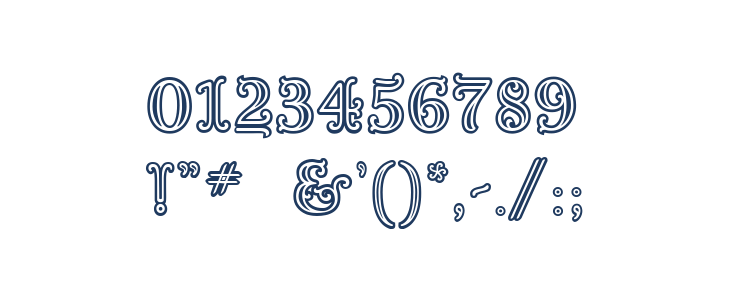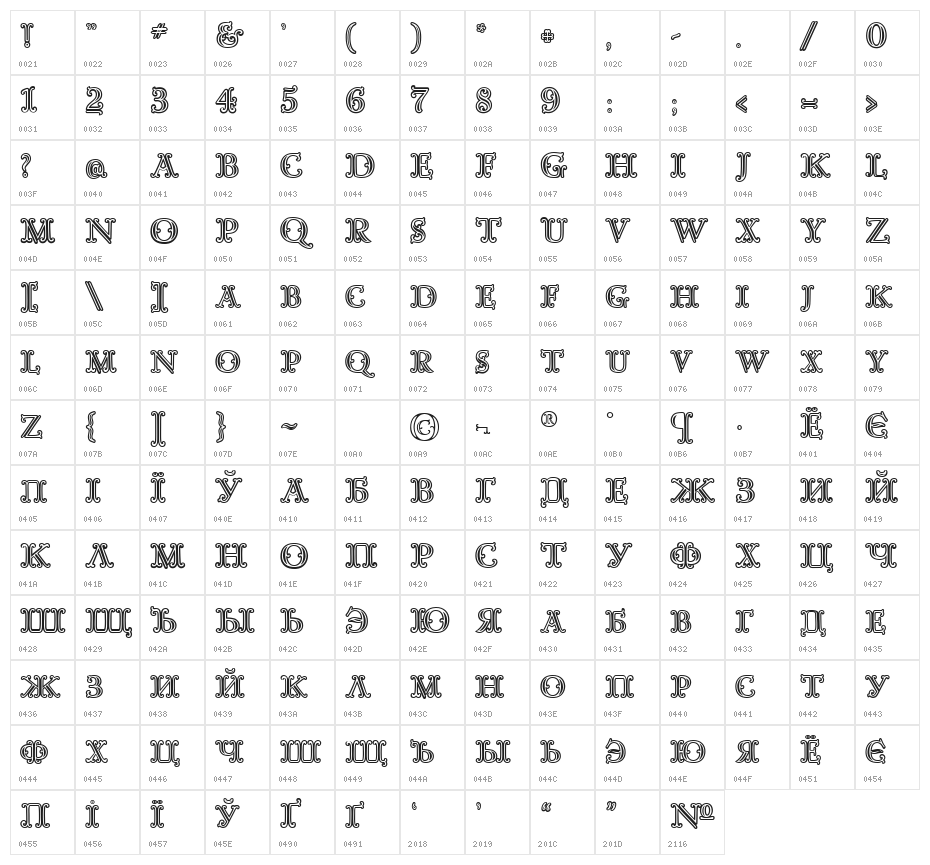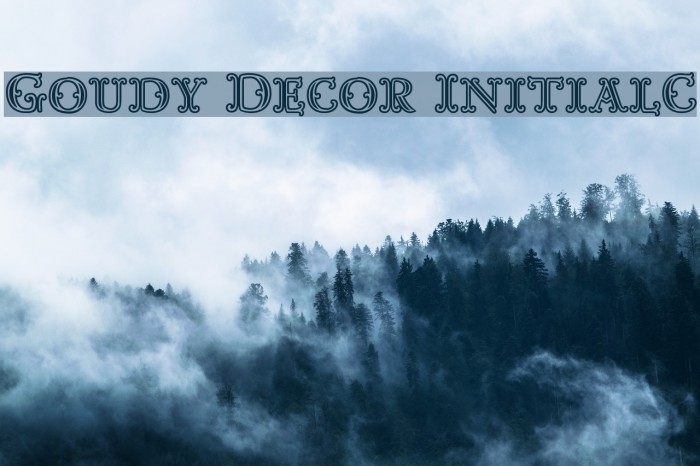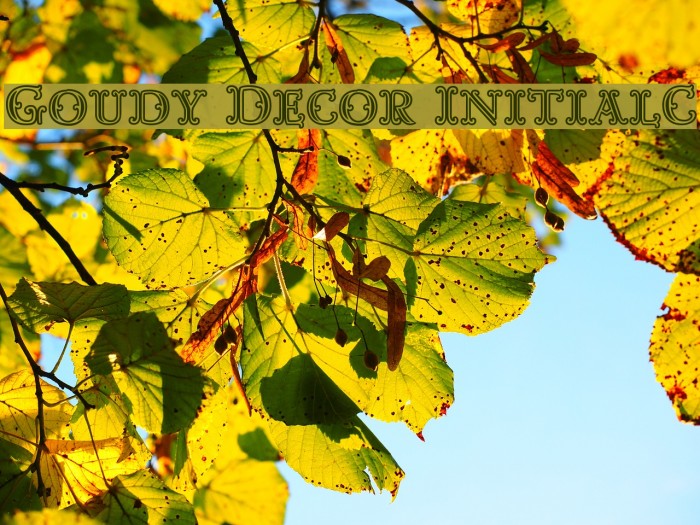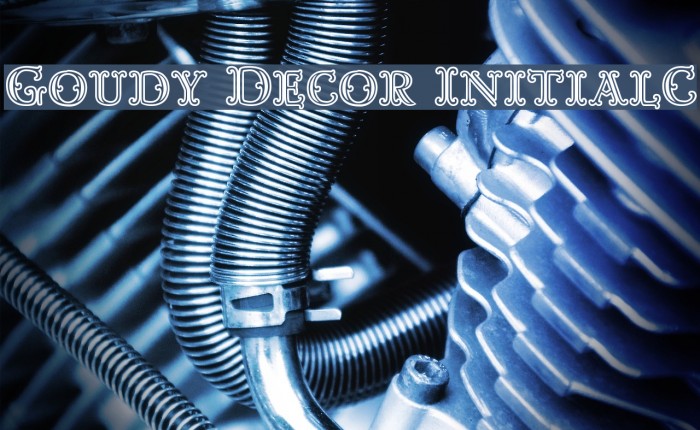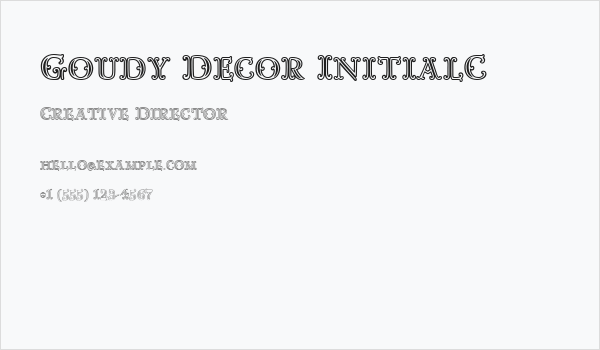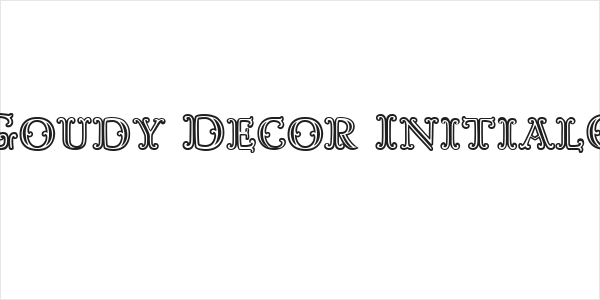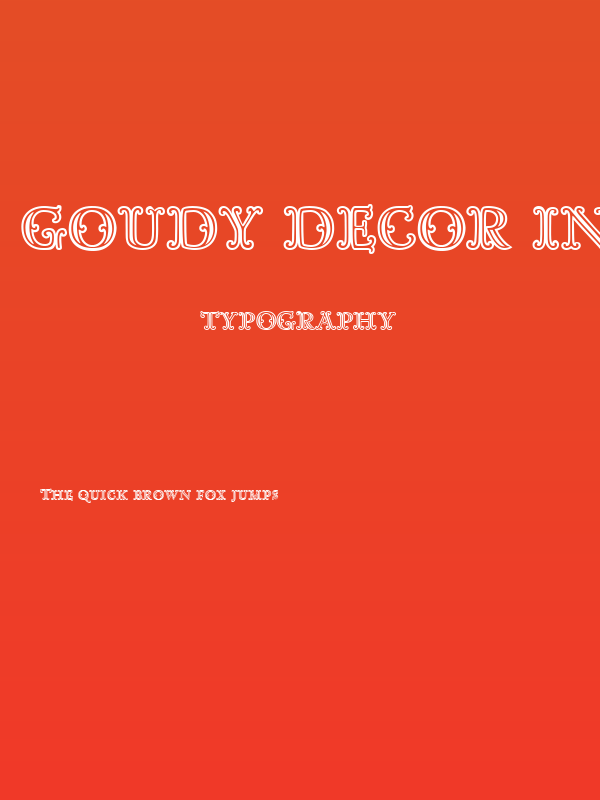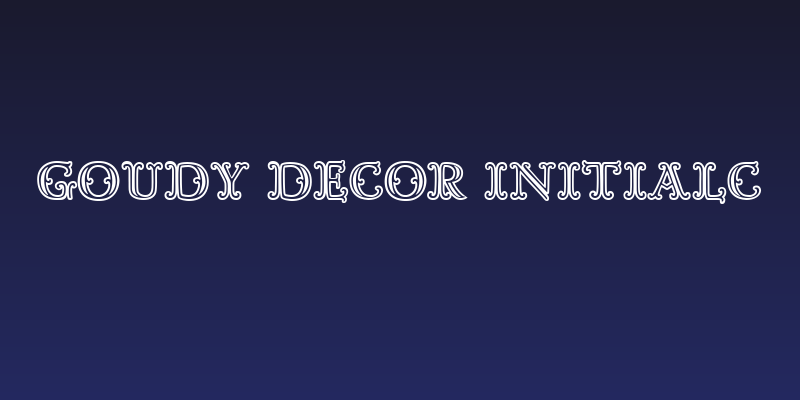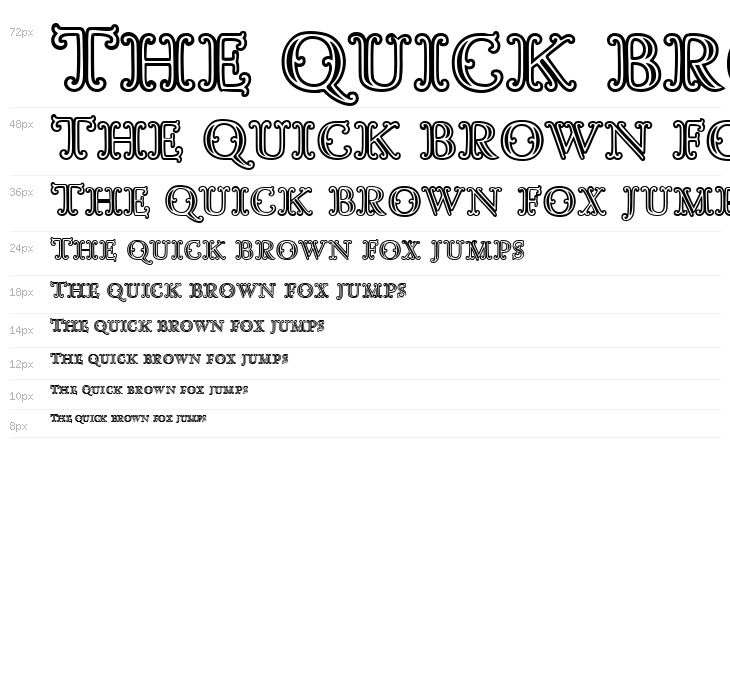
Goudy Decor InitialC Font
Goudy Decor InitialC Description
This font features an ornate and decorative style with intricate detailing on each character. The uppercase and lowercase letters are designed with a double-line effect that adds depth and complexity. The numbers and special characters follow the same decorative theme, making them stand out with their bold and artistic flair. The overall appearance is both elegant and playful, suitable for projects that require a touch of sophistication and creativity. The font's unique style makes it ideal for use in headlines, invitations, and branding materials where a distinctive and eye-catching look is desired.
Use CaseHeadlines, Invitations, Branding
Proposed ProjectsIdeal for wedding invitations, luxury branding, artistic posters, and decorative headlines.